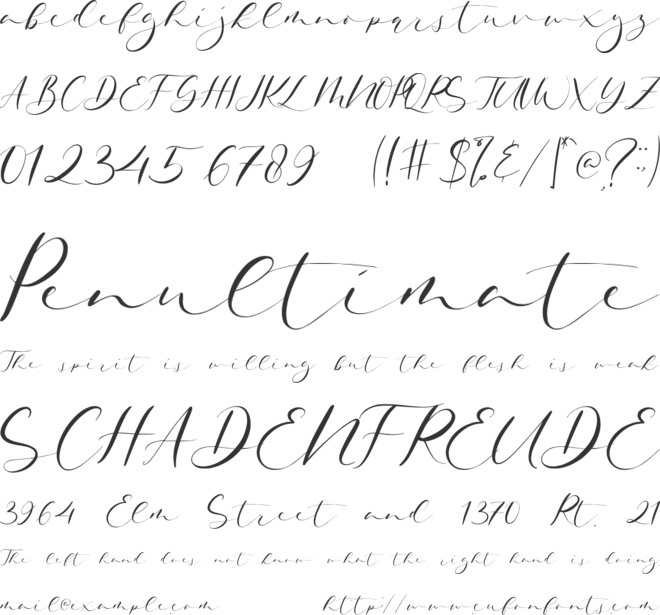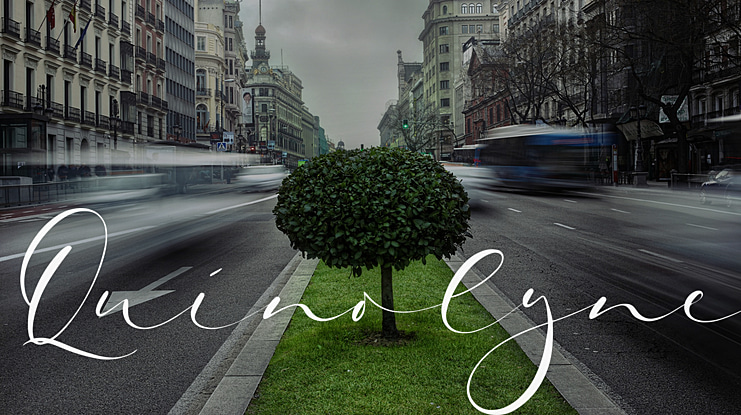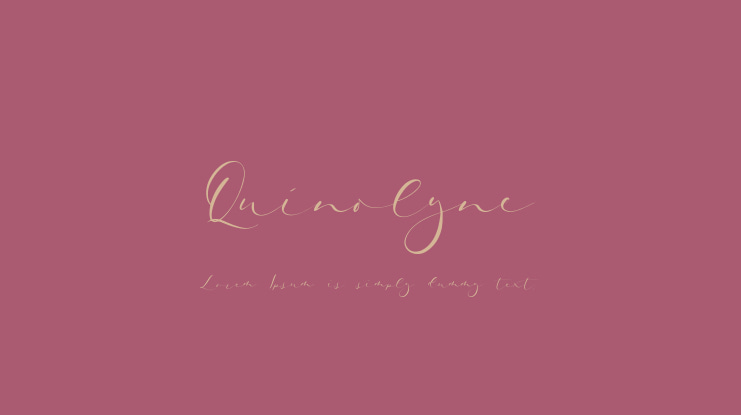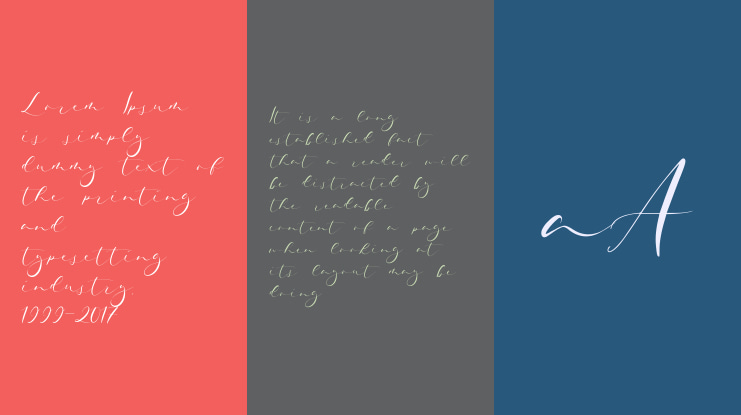
Quinolyne Font
Proudly Present, Quinolyne
Quinolyne is a Stylist Signature Font
Quinolyne is perfect for product packaging, branding project, megazine, social media, wedding, or just used to express words above the background.